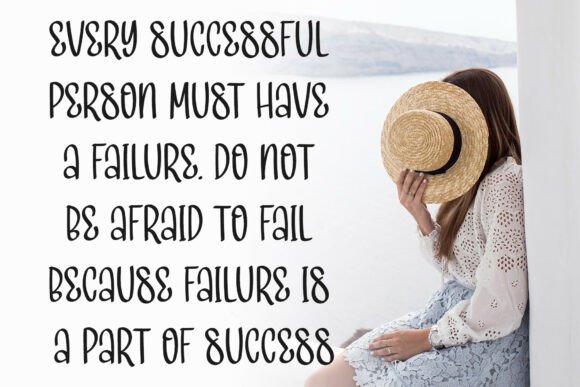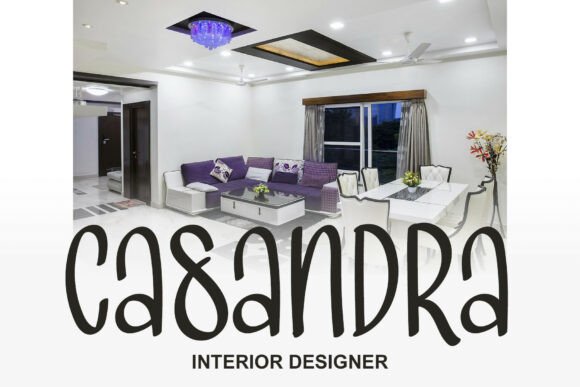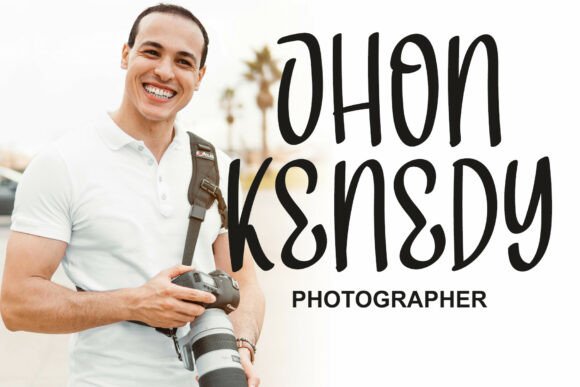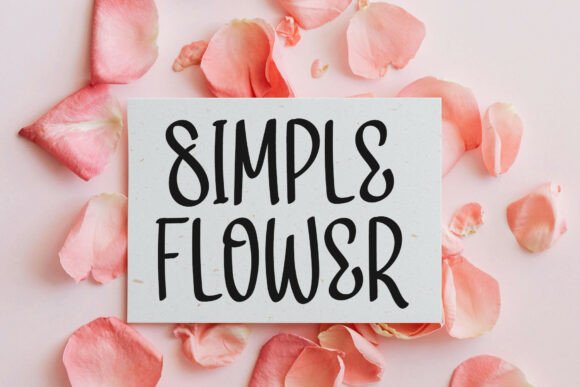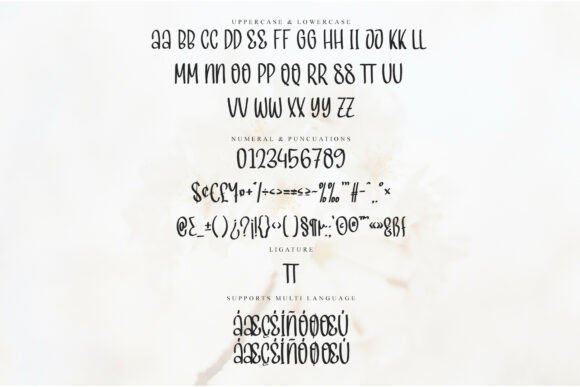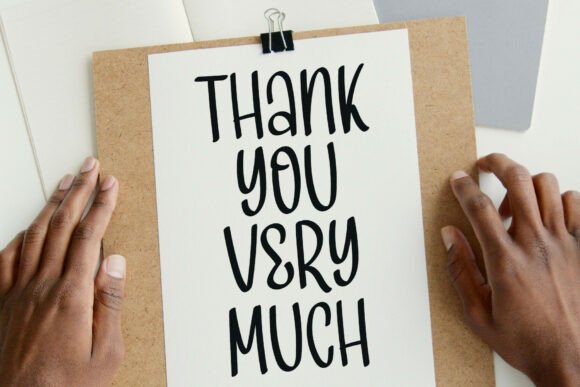
Unleashing the Artistry in Benito Font
Have you ever found yourself scribbling down ideas in a coffee shop, the sound of steaming lattes and gentle chatter in the background, as your pen glides effortlessly across the page? That’s where the magic happens, and inspiration strikes. In those moments, the right font can elevate your creative vision, giving it a touch of sophistication and personality.
Benito Font is the perfect companion for designers looking to add a dash of elegance to their work. This beautifully crafted display handwriting font combines flowing strokes and well-balanced curves to create a unique, modern aesthetic that’s both sophisticated and approachable. Whether you’re a graphic designer, illustrator, or simply a creative enthusiast, Benito Font is a valuable tool in your arsenal, allowing you to infuse your designs with a touch of class and personality.
BENITO FONT KEY FEATURES
- Unique Characteristics: Benito Font features a unique blend of modern and traditional design elements, with a wide range of ligatures and alternate characters
- Font Style: Benito Font comes in three different styles: Regular, Bold, and Italic
- Language Support: Supports over 200 languages, including Latin, Cyrillic, and Greek scripts
Benito Font Review
As a designer, I was excited to dive into the Benito Font and see what it had to offer. Overall, I was pleasantly surprised by its unique charm.
- Benito Font has a distinctive, elegant feel that sets it apart from more common serif fonts.
- The font’s curves and flourishes add a touch of sophistication and refinement.
- Benito Font is highly legible, making it suitable for a wide range of applications.
- The font’s ornate nature can sometimes make it feel overwrought or overwhelming.
- The lack of a bold weight can limit its use in situations where a strong emphasis is needed.
- The font’s design can be a bit too “decorative” for some applications, such as body text.
Benito Font is a unique and eye-catching choice for designers looking to add some personality to their projects. While it may not be the best fit for every situation, it’s certainly worth considering for applications where a touch of elegance and sophistication is desired.
Getting the Most Out of Benito Font
Benito Font is a versatile font suitable for a variety of designs, from elegant invitations to modern business cards. To get the most out of it, use it in combination with bold typography and clean design principles. You can also experiment with different font sizes and styles to create visual interest.
Benito Font is commonly used for:
- Website headings and titles
Alternatives to Benito Font
Merriweather is a classic serif font designed by Eben Sorkin in 2006. It’s ideal for body text and long paragraphs due to its readability and elegant feel. When to use: For print materials, books, and websites where a traditional and sophisticated look is desired.
Merriweather is more formal and elegant compared to Benito Font, which has a more rustic and vintage feel. Merriweather is also more suitable for formal documents and academic papers.
Lato is a sans-serif font designed by Łukasz Dziedzic in 2010. It’s a modern and clean font that works well for headings and titles. When to use: For digital products, apps, and websites where a clean and minimalist design is desired.
Lato is more modern and clean compared to Benito Font, which has a more vintage and rustic feel. Lato is also more suitable for digital products and websites with a modern design.
3. Playfair Display Font
Playfair Display is a luxury serif font designed by Claus Eggers Sørensen in 2011. It’s ideal for headings and titles due to its elegant and sophisticated feel. When to use: For high-end products, luxury brands, and websites where a premium and elegant look is desired.
Playfair Display is more luxurious and elegant compared to Benito Font, which has a more rustic and vintage feel. Playfair Display is also more suitable for high-end products and luxury brands.